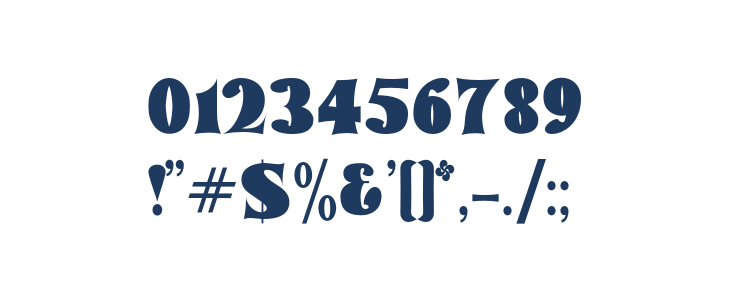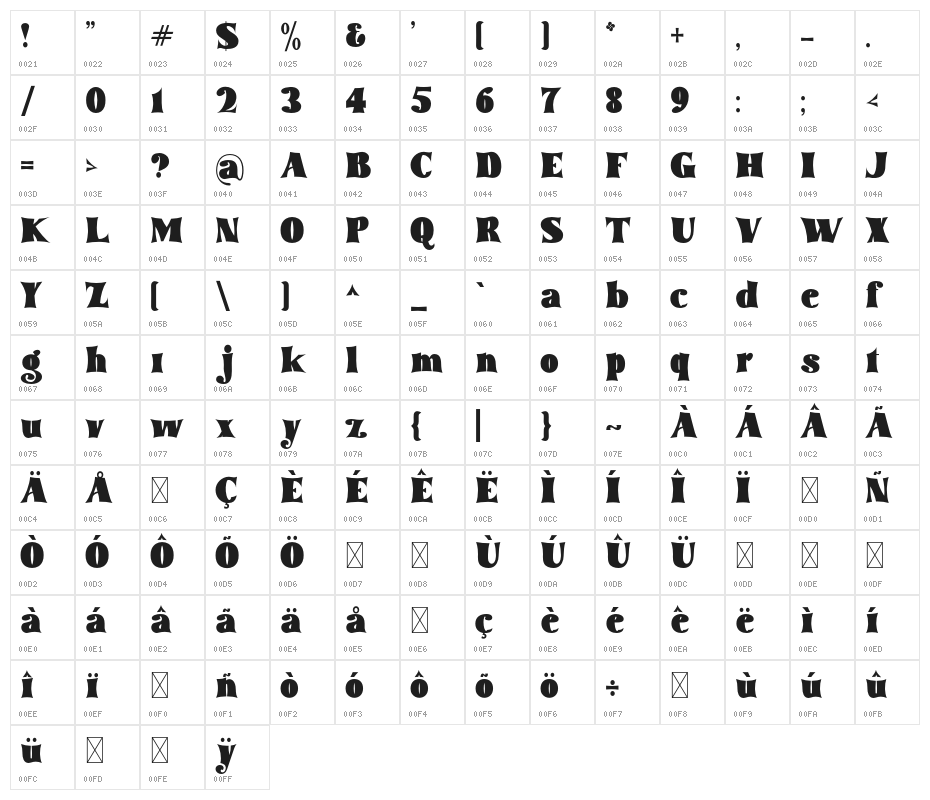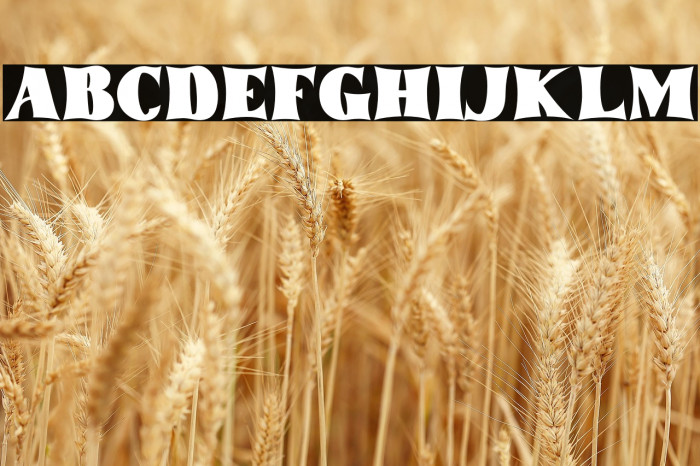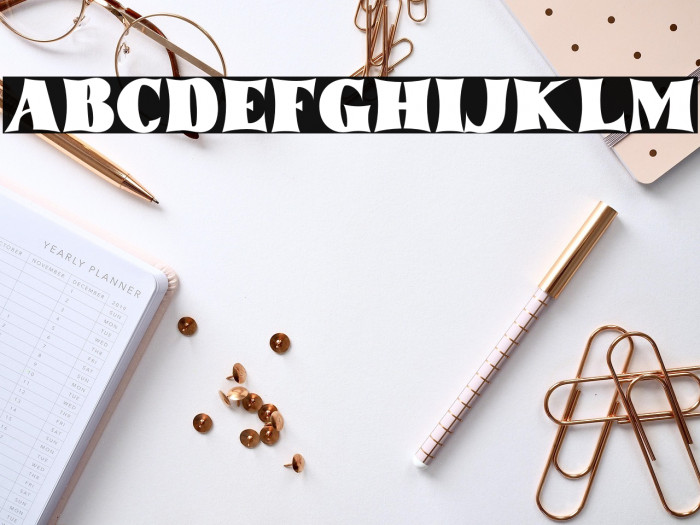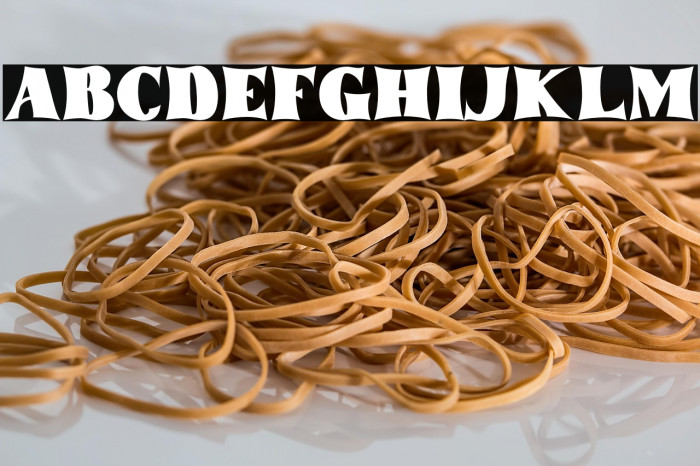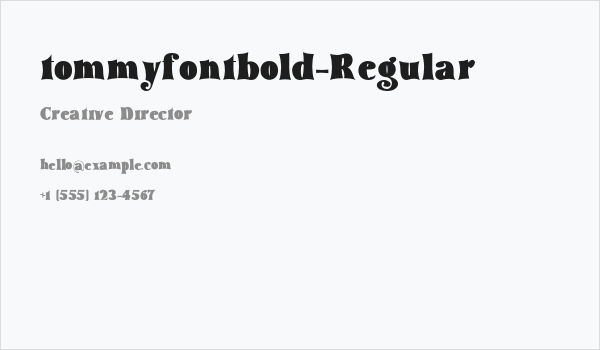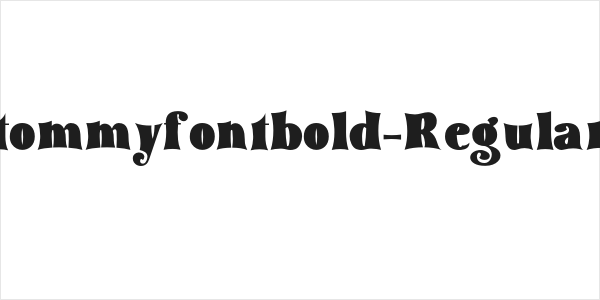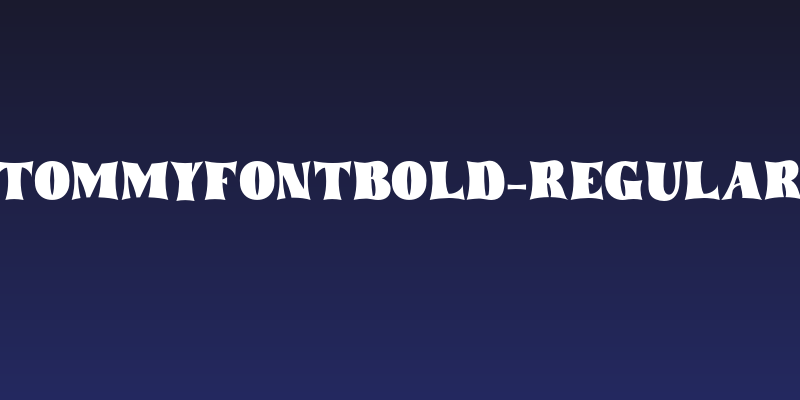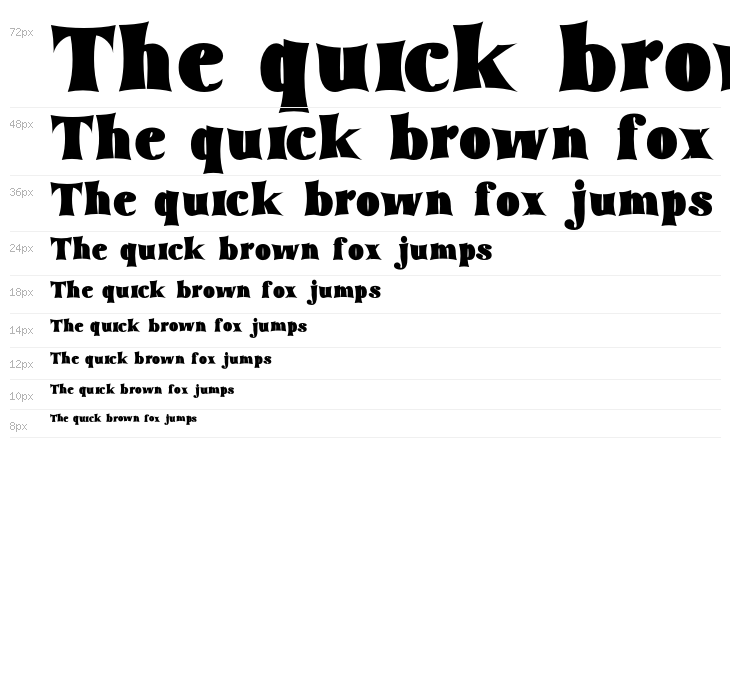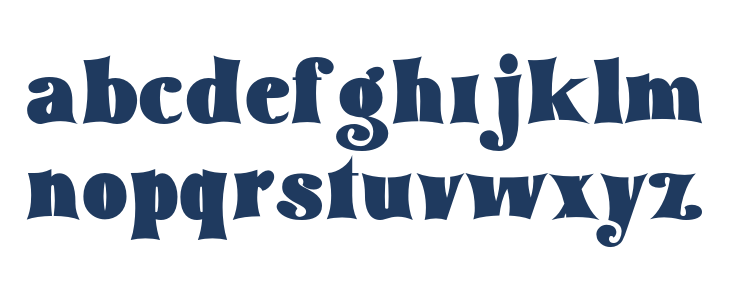
tommyfontbold-Regular Font
tommyfontbold-Regular Description
This font features a bold and dramatic style with thick, heavy strokes that create a strong visual impact. The characters have a unique, slightly whimsical appearance with exaggerated curves and angles, giving it a playful yet assertive look. The uppercase letters are particularly striking, with wide, robust forms that command attention. The lowercase letters maintain the same boldness, with some characters exhibiting distinctive flourishes. The numerals are equally bold, ensuring consistency across all characters. Special characters are designed with the same boldness and flair, making them stand out. This font is ideal for projects that require a strong, eye-catching typeface.
| Proposed Projects | Perfect for posters, headlines, branding, and any design needing a strong, attention-grabbing typeface. |